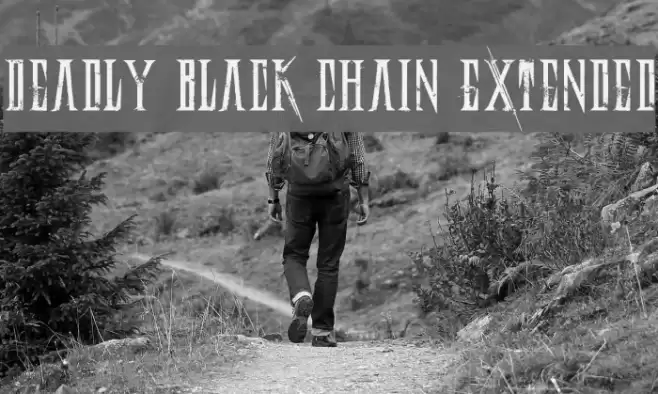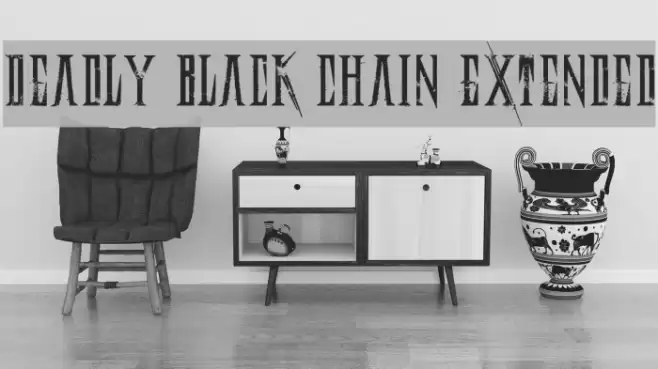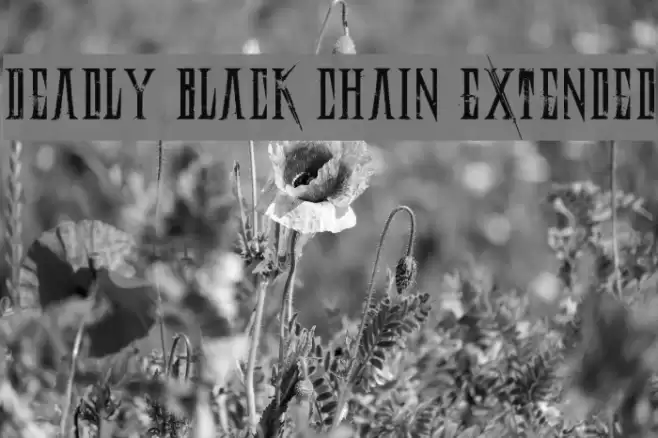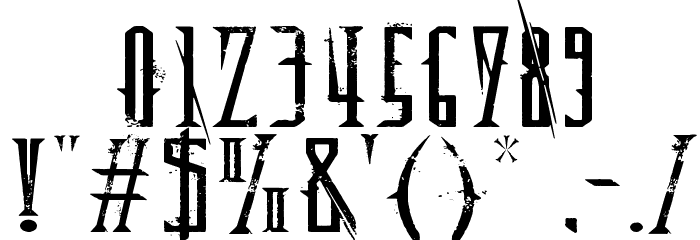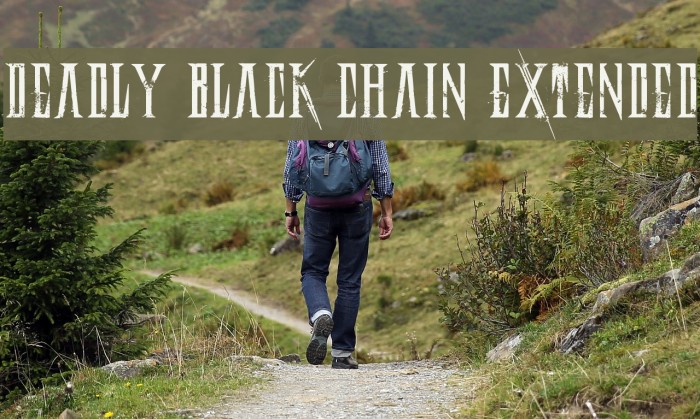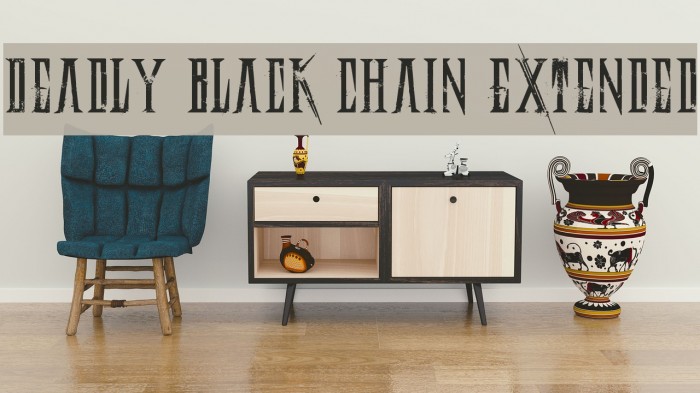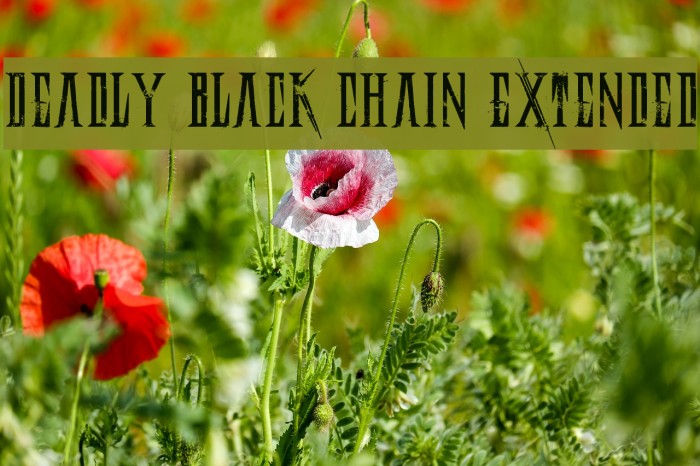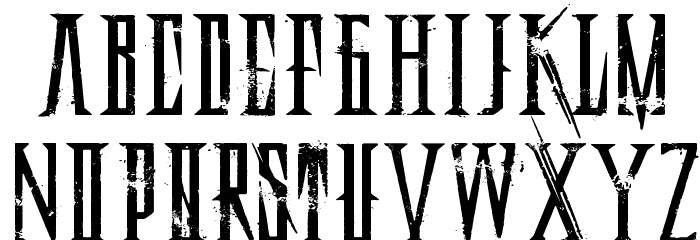
Deadly Black Chain Extended Font
Deadly Black Chain Extended Description
This font exhibits a bold, distressed style with a gothic influence, characterized by sharp, angular lines and a weathered texture that gives it a rugged, edgy appearance. The uppercase and lowercase letters maintain a consistent height, creating a uniform look. The numerals and special characters follow the same distressed aesthetic, ensuring cohesion across all elements. This font's unique style is reminiscent of heavy metal or horror themes, making it ideal for projects that require a dramatic and impactful visual presence.
A bold, distressed gothic-style font with sharp, angular lines and a rugged texture from Uncategorized fonts.
- Proposed Projects: Album covers, horror movie posters, video game titles, and edgy branding materials.
- Character Spacing: Tight
- Overall Style: Gothic, Distressed, Edgy